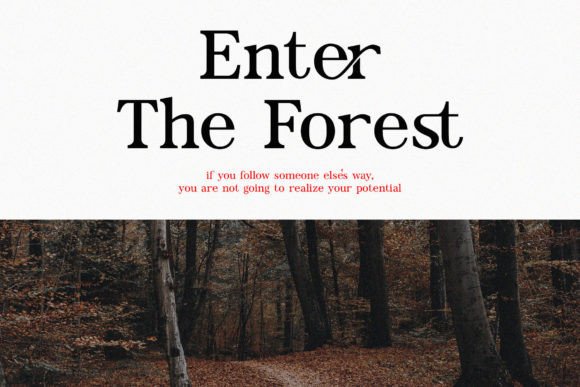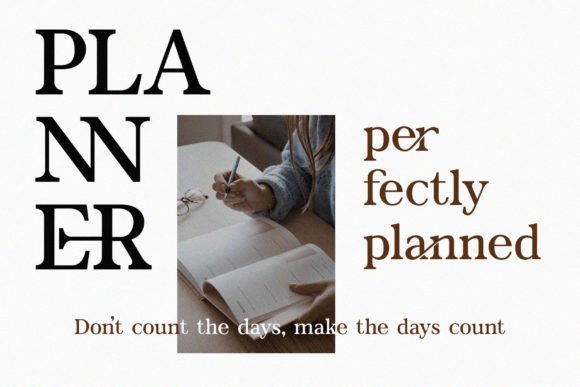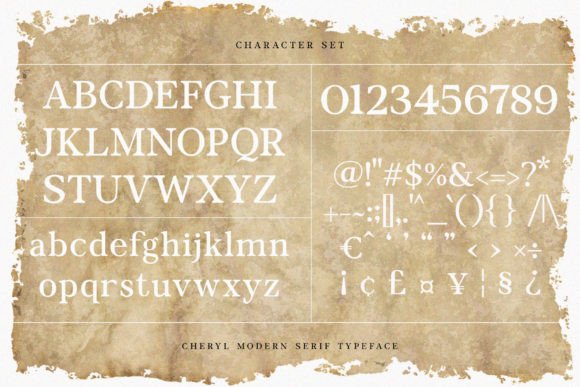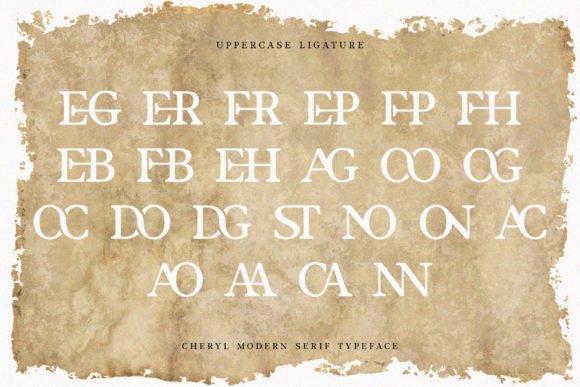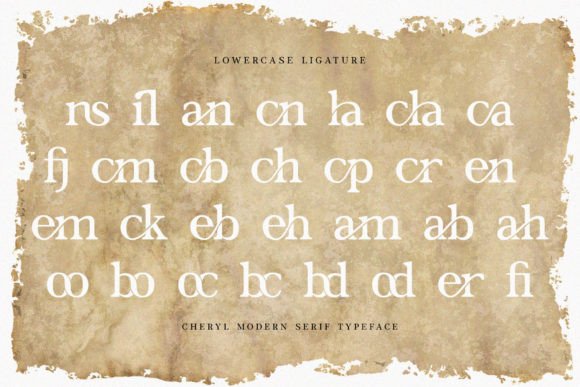
Introducing Cheryl: The Timeless Serif Font for Elegant Designs
In the world of typography, fonts play a crucial role in conveying the tone and personality of a brand or design. For designers and crafters seeking a touch of elegance and sophistication, Cheryl font is an excellent choice. This classic and classy serif font boasts a modern and nostalgic feel, making it perfect for a wide range of applications, from logos and magazines to social media posts and more.
The Characteristics of Cheryl Font
Cheryl font is distinguished by its refined and luxurious appearance, which is achieved through its carefully crafted serif details. The font’s classic design ensures that it remains timeless and versatile, suitable for various design projects that require a sense of tradition and heritage. At the same time, its modern twist adds a fresh and contemporary feel, allowing it to adapt seamlessly to current design trends.
One of the key advantages of Cheryl font is its versatility. Its elegant and sophisticated appearance makes it an ideal choice for:
- Logos: Create a lasting impression with a logo that exudes class and professionalism. Cheryl font’s unique blend of classic and modern elements ensures that your brand stands out from the competition.
- Magazines and Editorials: Add a touch of sophistication to your publications with Cheryl font. Its clear and readable design makes it perfect for body text, while its elegant appearance is ideal for headlines and titles.
- Social Media Posts: Elevate your social media presence with Cheryl font. Its modern and nostalgic feel ensures that your posts stand out in crowded feeds, making it perfect for businesses, influencers, and individuals looking to make a statement.
- Packaging and Branding: Create eye-catching packaging and branding materials with Cheryl font. Its luxurious appearance adds a touch of high-end quality to any product or brand.
Why Choose Cheryl Font?
With so many fonts available, why choose Cheryl font for your design projects? Here are a few compelling reasons:
- Elegance and Sophistication: Cheryl font’s classic and classy design ensures that your projects exude elegance and sophistication.
- Versatility: From logos to social media posts, Cheryl font is versatile enough to be used in a wide range of design applications.
- Timeless Appeal: Cheryl font’s timeless design ensures that your projects remain relevant and stylish for years to come.
- Easy to Read: Despite its elegant appearance, Cheryl font is clear and easy to read, making it perfect for body text and headlines.
Tips for Using Cheryl Font Effectively
To get the most out of Cheryl font, consider the following tips:
- Pair with Complementary Fonts: Experiment with pairing Cheryl font with complementary fonts to create visual interest and hierarchy in your designs.
- Adjust Font Sizes: Adjust font sizes to create contrast and emphasis in your designs. Cheryl font’s clear design ensures that it remains readable at various sizes.
- Use Font Styles: Take advantage of Cheryl font’s various styles, such as bold and italic, to add emphasis and create visual hierarchy.
In conclusion, Cheryl font is an excellent choice for designers and crafters seeking a touch of elegance and sophistication in their projects. Its classic and classy serif design, combined with its modern and nostalgic feel, makes it perfect for a wide range of applications. With its versatility, timeless appeal, and easy readability, Cheryl font is sure to become a staple in your design toolkit.